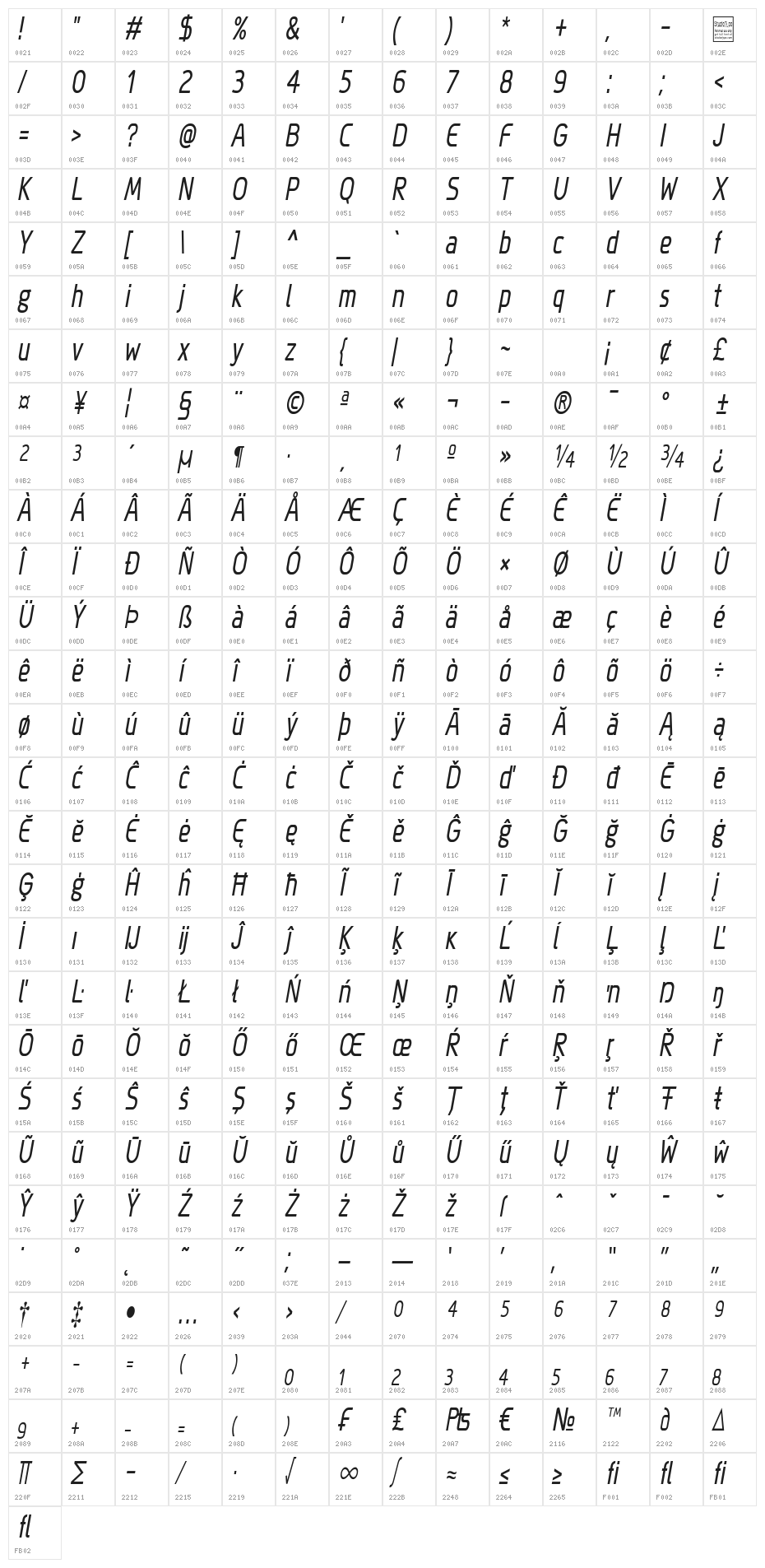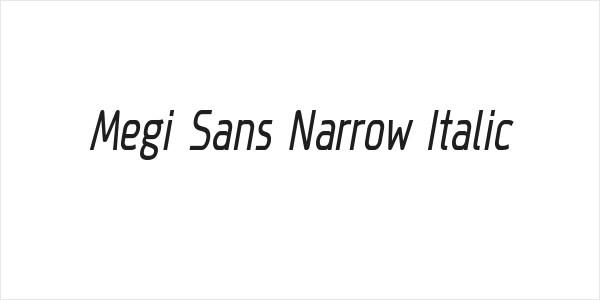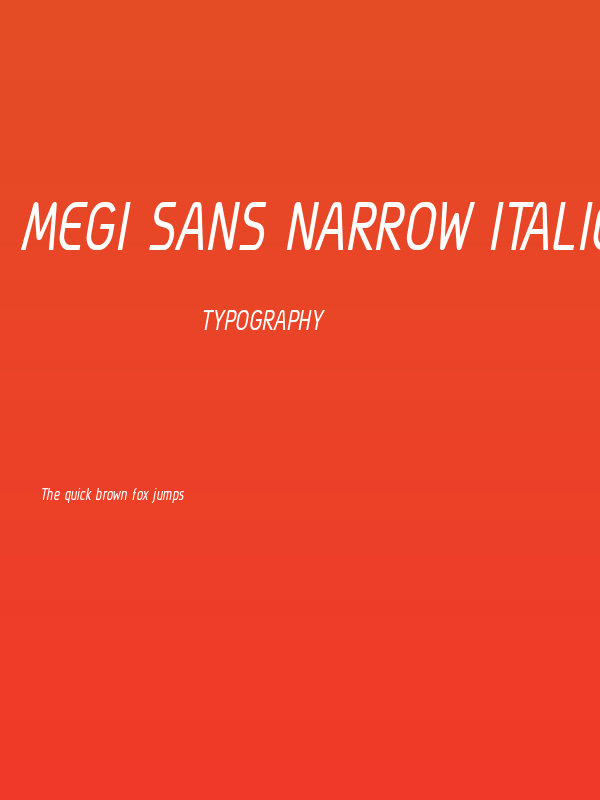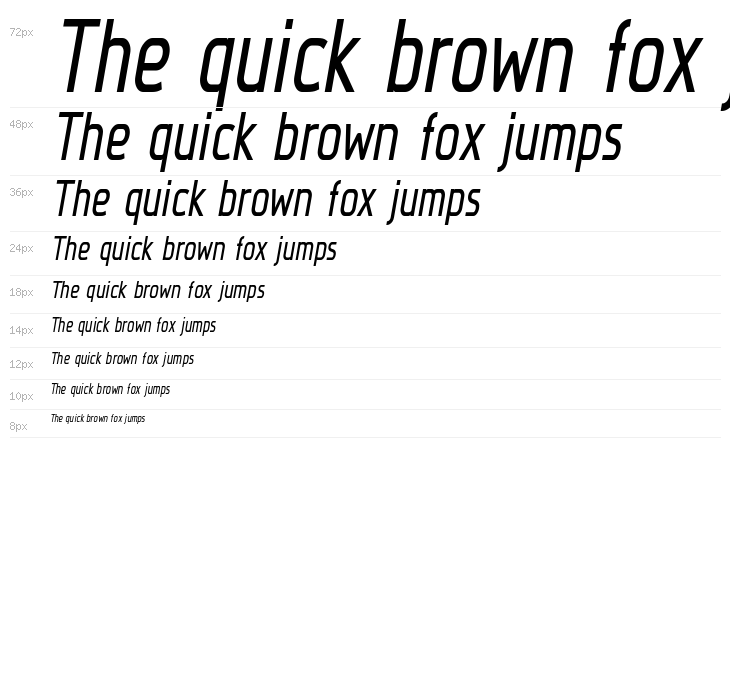
Megi Sans Narrow Italic Font
Megi Sans Narrow Italic Description
This font features a sleek, modern design with a narrow and italicized style. The characters are slightly condensed, giving it a streamlined appearance that is both elegant and contemporary. The strokes are consistent in width, providing a uniform look across all characters. The font maintains a clean and professional aesthetic, making it suitable for a variety of applications. The italic slant adds a dynamic feel, enhancing its visual appeal. The numerals and special characters are well-integrated, ensuring readability and versatility.
| Use Case | Headlines, Logos, Editorial design |
| Proposed Projects | Ideal for branding, advertising, and editorial design projects where a modern and stylish look is desired. |